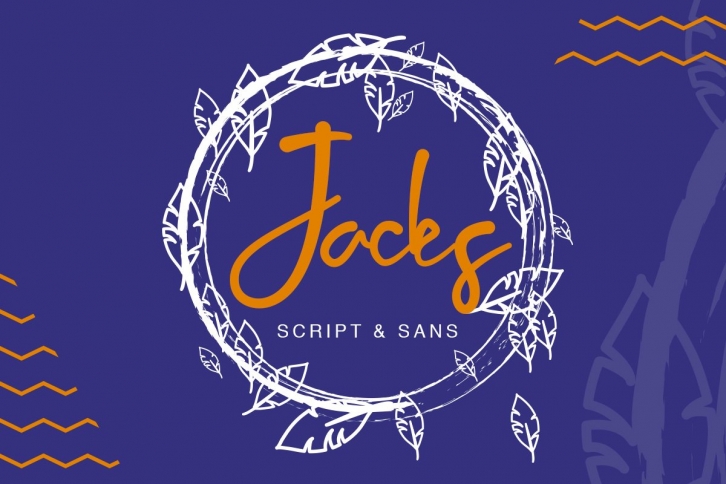
Introducing Jacks Font Duo - Modern script and sans serif fonts, perfect for many different project ex: quotes, blog header, poster, wedding, branding, logo, fashion, apparel, letter, invitation, stationery, etc.